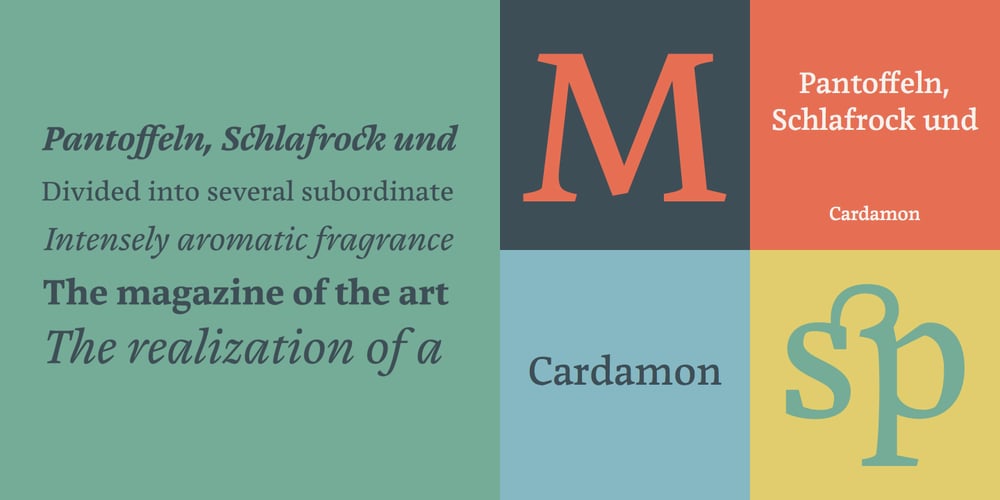
Cardamon
Cardamon font
Cardamon Font Family was designed by Brigitte Schuster and published by Linotype. Cardamon contains 8 styles and family package options. “My goal in creating the Cardamon family,” says Brigitte Schuster of her first design, “was to make an unobtrusive serif typeface which, at the same time, has a determined and straightforward demeanor.” “I wanted to design a typeface with sharp edges and corners,” explains Schuster. “I was influenced by the angularities in Vojtěch Preissig‘s “Antiqua” and “Cursive” in addition to Oldřich Menhart‘s “Menhart” typeface.”